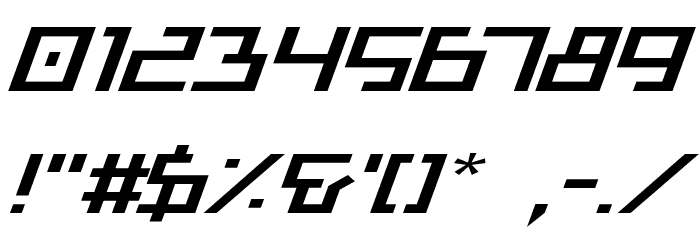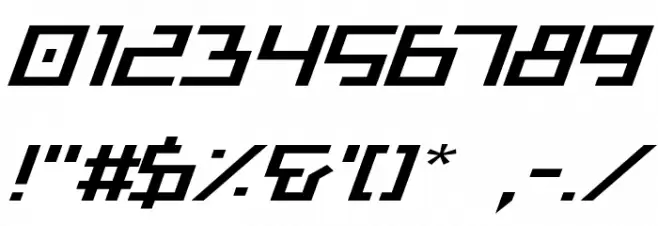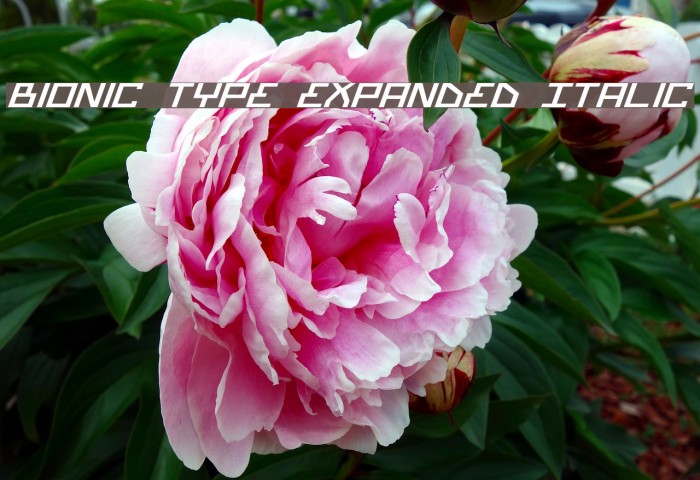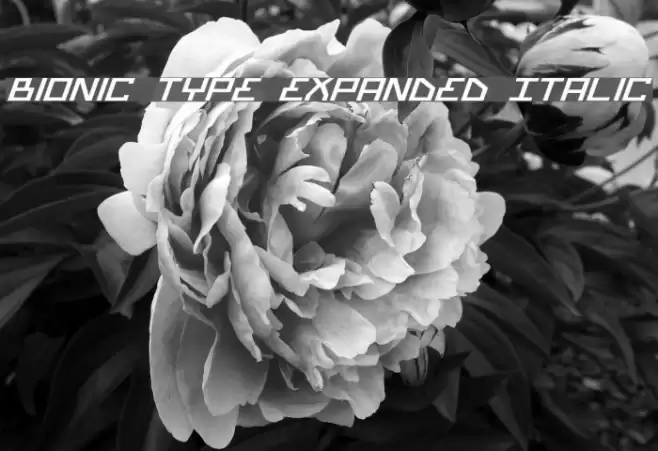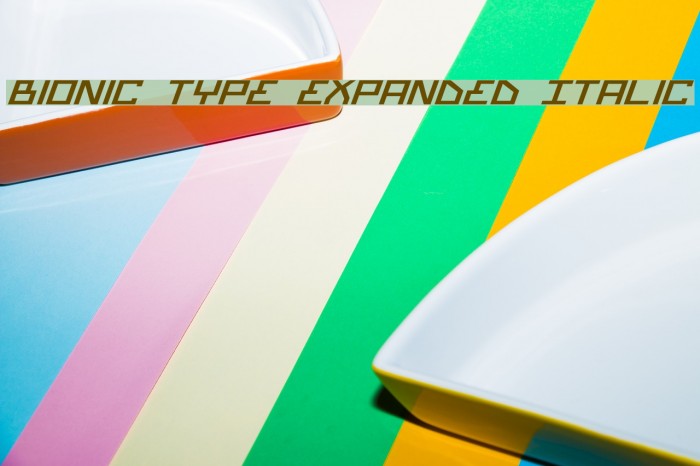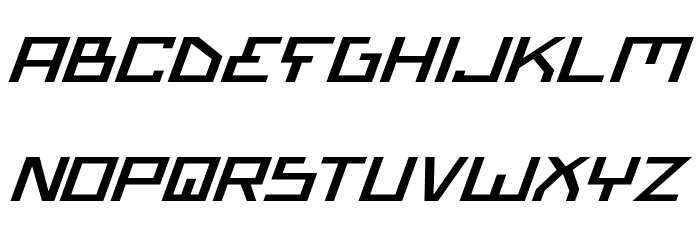
Bionic Type Expanded Italic Font
Bionic Type Expanded Italic Description
This font features a futuristic and angular design, characterized by its sharp edges and geometric shapes. The letters are slanted, giving an italicized appearance, and the overall style is expanded, providing a sense of space and openness. The uppercase and lowercase letters maintain a consistent style, with a unique approach to certain characters like 'E' and 'F', which have distinct diagonal cuts. The numbers follow the same angular theme, ensuring uniformity across all characters. Special characters are also designed with the same futuristic aesthetic, making this font ideal for projects that require a modern and tech-inspired look.
| Proposed Projects | Ideal for tech branding, sci-fi movie posters, video game titles, and modern digital interfaces. |